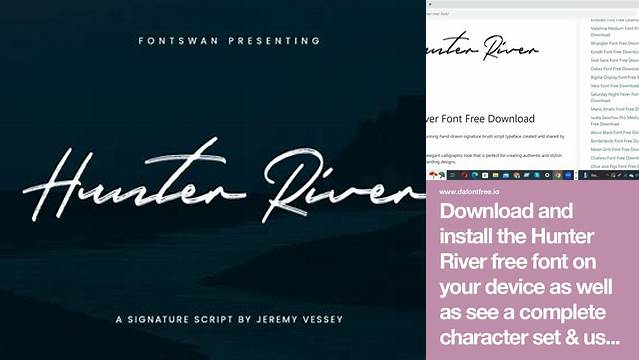
1. What is the Hunter River Font Family?
The Hunter River Font Family isn't just one font; it’s a collection of styles that complement each other beautifully. Think of it as a well-coordinated ensemble rather than a solo act. Typically, the family includes regular, bold, italic, and sometimes even more decorative versions. The design often features a hand-drawn aesthetic, giving it a personal and authentic feel. This makes it perfect for projects where you want to convey warmth, trustworthiness, or a touch of the artisanal. Whether you're working on branding for a local coffee shop, designing invitations for a woodland-themed wedding, or crafting a logo for an outdoor adventure company, the Hunter River Font Family can add that special something that sets your work apart. It's versatile enough to be used in headlines, body text, and even smaller design elements, ensuring consistency and visual appeal throughout your project. The nuances in each style allow you to create visual hierarchy and add depth to your designs, making it a valuable asset in any designer's toolkit.
3. Using Hunter River Font in Graphic Design
So, you've got your hands on the Hunter River Font – awesome! Now, let's talk about putting it to work in your graphic design projects. This font shines when used in designs that need a touch of rustic charm or a handmade feel. Think logos for small businesses, labels for artisanal products, or even posters for local events. The key is to balance it with other design elements to avoid overpowering the overall aesthetic. Pair it with clean, minimalist graphics for a modern twist, or go full-on vintage with antique textures and muted colors. Experiment with different weights and styles within the Hunter River family to create visual hierarchy and add depth to your designs. Use it for headlines to grab attention or in smaller text blocks to add character. Just remember, typography is all about balance and readability, so play around with different combinations until you find the perfect fit. With a little creativity, Hunter River can be a game-changer in your design toolkit!
4. Hunter River Font for Logos and Branding
When it comes to logos and branding, the Hunter River Font can be a real game-changer. Its distinctive, slightly rugged appearance makes it an excellent choice for brands aiming to project authenticity, craftsmanship, or a connection to the outdoors. Imagine a logo for a coffee roastery, a handmade leather goods shop, or an adventure tourism company – Hunter River fits right in, doesn't it? The font's unique character helps a brand stand out, conveying a sense of history and personalized attention. However, it's crucial to use it thoughtfully. Consider the overall brand identity and ensure that the font aligns with the brand's values and target audience. In some cases, it might be effective as the primary logo font, while in others, it might work better as an accent element. Pairing it with a simpler, more modern sans-serif font can create a balanced and memorable visual identity. Remember, a logo is often the first impression a brand makes, so choosing the right font is a critical decision. With Hunter River, you have a powerful tool to communicate your brand's unique story and personality.
5. Pairing Hunter River Font with Other Fonts
One of the secrets to great design is knowing how to pair fonts effectively, and the Hunter River Font is no exception. This font, with its distinct personality, works best when paired with fonts that complement its style without overpowering it. A classic choice is to pair Hunter River with a clean, simple sans-serif font. This combination creates a nice contrast between the font's rustic, hand-drawn feel and the sans-serif's modern, minimalist aesthetic. Think of it as the perfect balance between old and new. Another option is to pair it with a more refined serif font, but be careful to choose one that doesn't clash with Hunter River's character. The key is to create visual harmony and ensure that the fonts work together to enhance the overall design. Experiment with different font weights and sizes to create visual hierarchy and guide the viewer's eye. Remember, font pairing is an art, so don't be afraid to try different combinations until you find the perfect match. A well-chosen font pairing can elevate your design and make it truly stand out.
6. Hunter River Font in Web Design
Using the Hunter River Font in web design can add a unique touch to your site, especially if you're aiming for a rustic, vintage, or handcrafted aesthetic. Imagine a website for a local brewery, a farm-to-table restaurant, or an artisan shop – Hunter River can really enhance the visual appeal and convey the brand's personality. However, when using it on the web, there are a few things to keep in mind. First, ensure that the font is properly optimized for web use to avoid slow loading times. Consider using web font services or converting the font to a web-friendly format. Second, pay attention to readability. While Hunter River is great for headlines and short bursts of text, it might not be the best choice for large blocks of body text. Pair it with a more legible font for the main content to ensure a comfortable reading experience. Finally, test the font on different devices and browsers to make sure it renders correctly. With a little bit of planning and attention to detail, Hunter River can be a valuable asset in your web design toolkit.
7. Using Hunter River Font for Print Materials
For print materials, the Hunter River Font is a fantastic choice when you want to convey a sense of authenticity, craftsmanship, or rustic charm. Think about using it on business cards for a local artisan, posters for a vintage market, or packaging for handmade goods. The font's unique character can really make your print designs stand out. One of the advantages of using Hunter River in print is that you don't have to worry as much about web optimization issues. However, it's still important to ensure that the font is properly embedded in your files to avoid any font substitution problems when printing. Also, consider the paper stock and printing techniques you're using. Hunter River can look particularly stunning on textured paper or when combined with letterpress printing. Experiment with different colors and finishes to create a truly memorable and tactile experience. With a little creativity, Hunter River can elevate your print designs and leave a lasting impression.